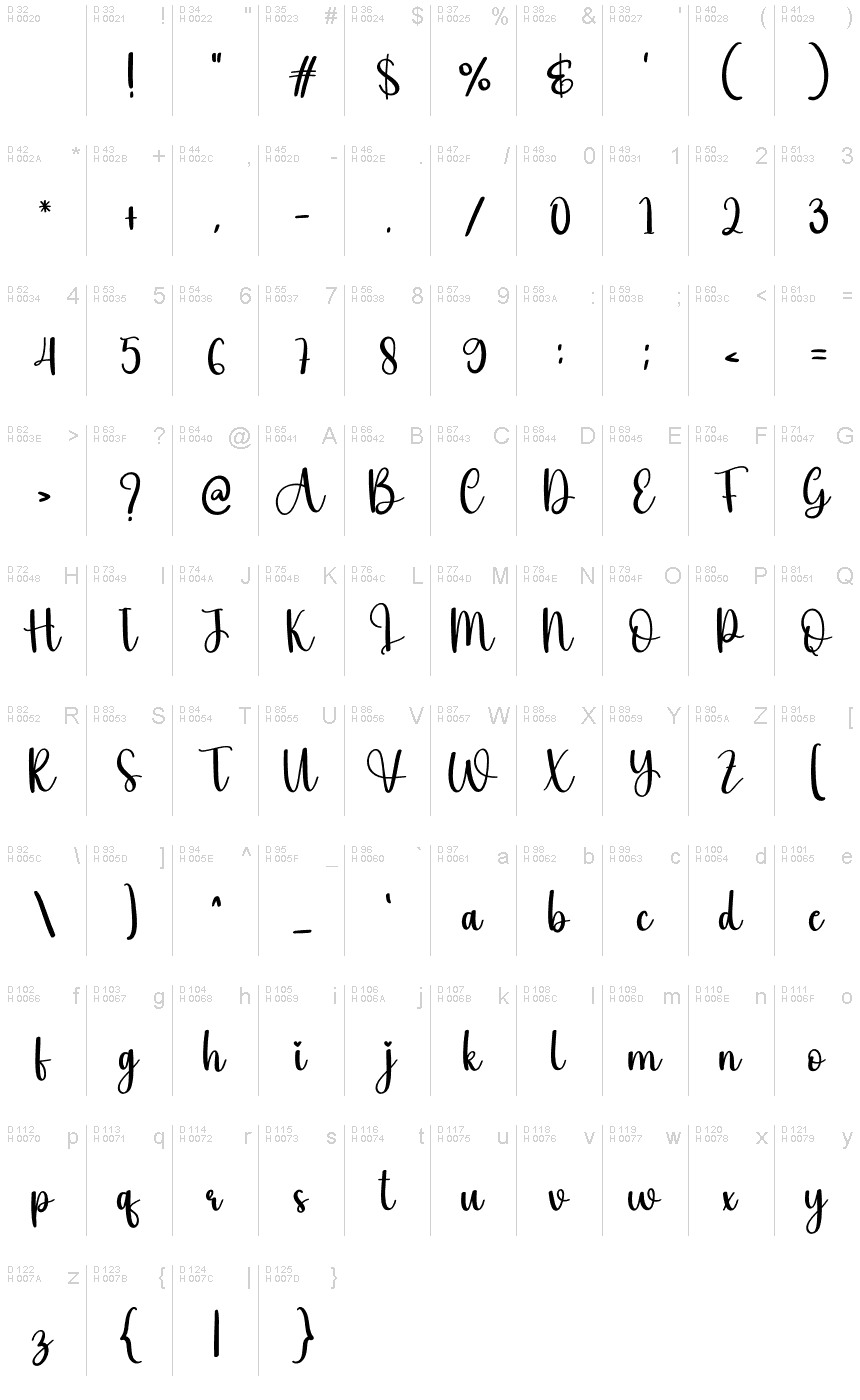
Vallue
Vallue, a delightful semi-light handwritten font crafted by Scratchones, adds a touch of whimsy to any project.
Its elegant curves and charming strokes make it perfect for wedding invitations, greeting cards, and romantic branding materials. With its soft yet legible design, Vallue is also an ideal choice for children's books, feminine blogs, and artistic websites.
Embrace the enchanting allure of this typeface and elevate your creative endeavors with Vallue's lovely handwritten style.
The latest style letters are perfect for wall displays, wedding invitations, social media post logos, advertisements, product packaging, product designs, labels, photography, watermarks, invitations, stationery, and any project that requires taste handwriting.